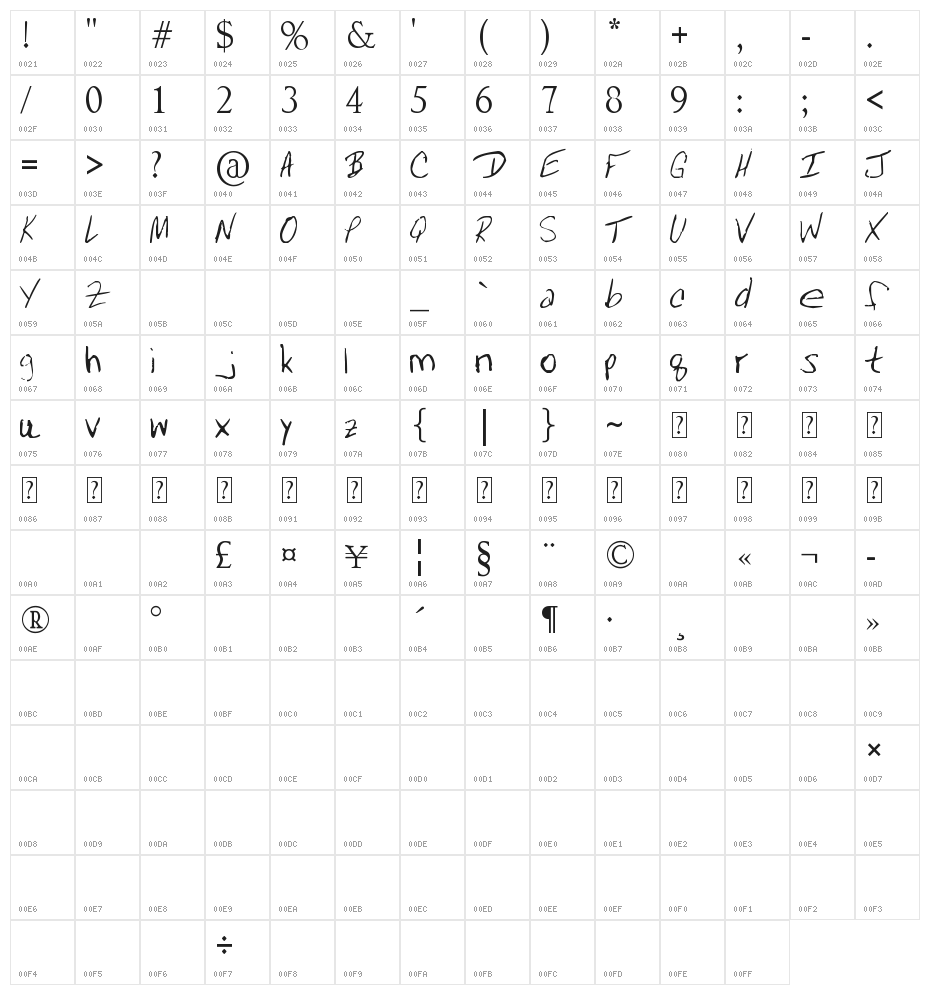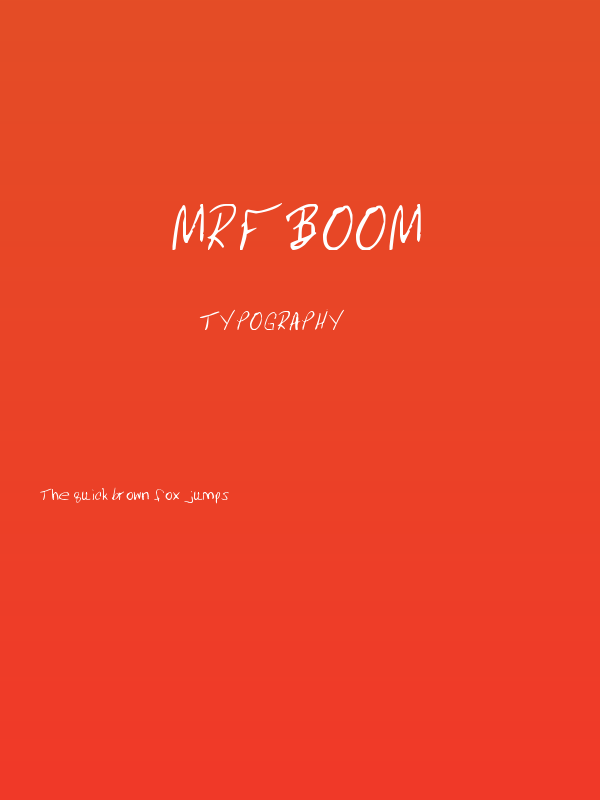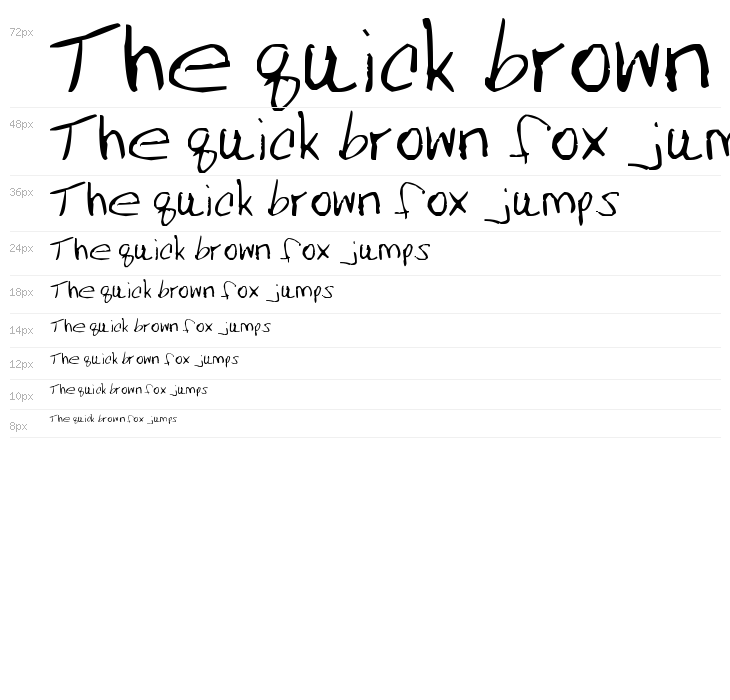
MRFBOOM Font
| Caso d'uso | Logos, Headlines, Creative projects |
| Progetti proposti | Ideal for creative projects such as greeting cards, invitations, posters, and branding materials that require a personal touch. |